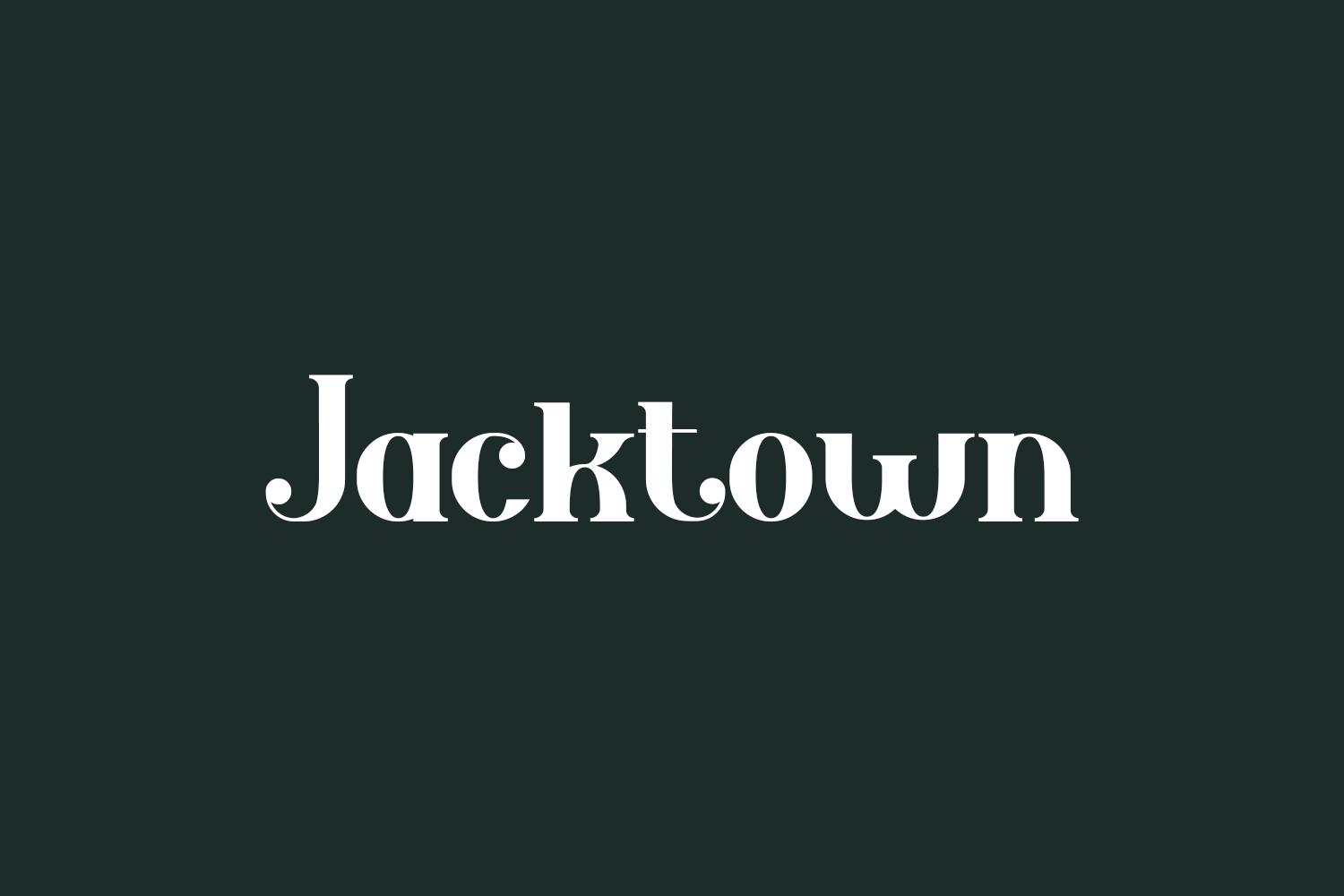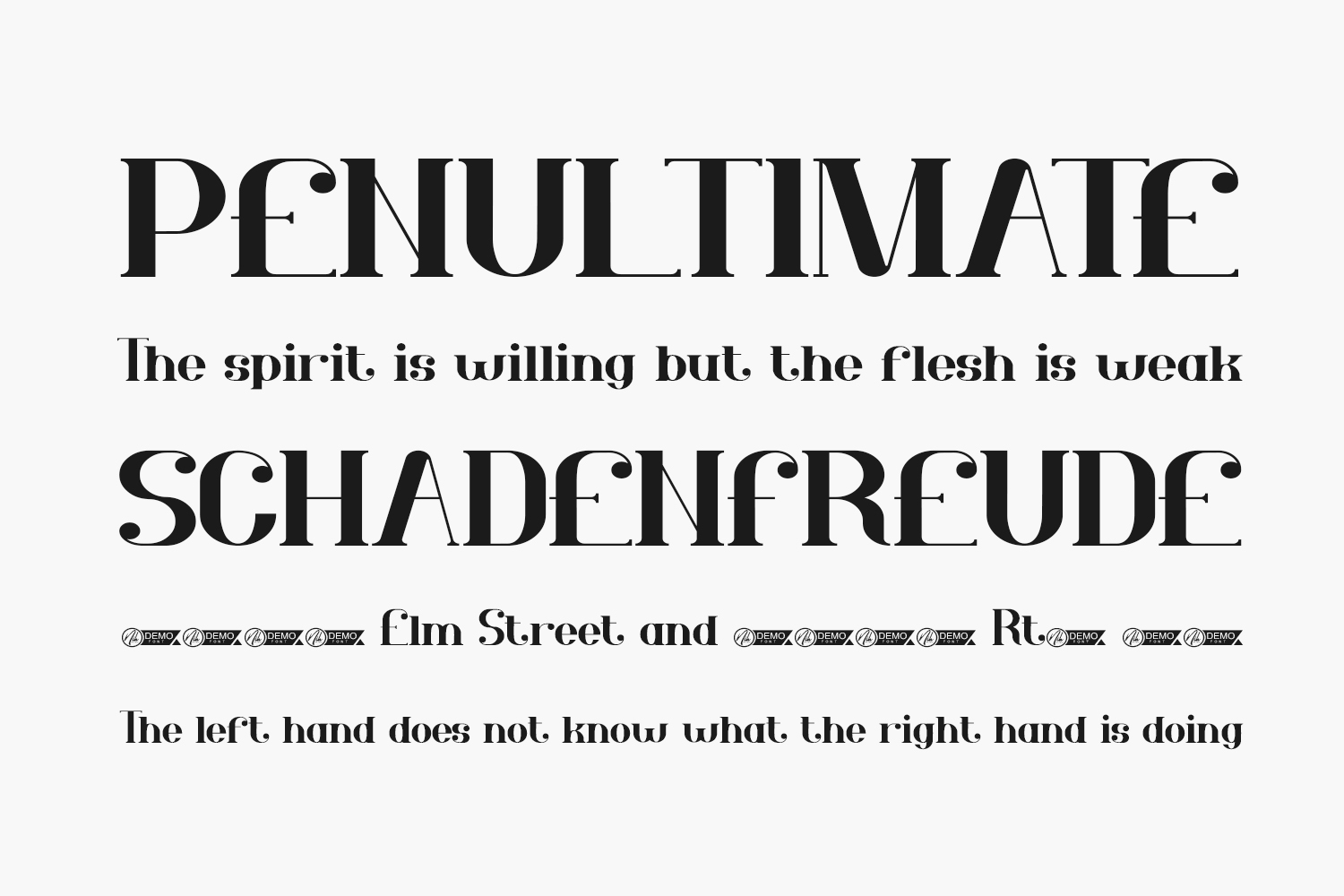
Introducing Jacktown Free Font Family, a unique and vintage display font that exudes distinct character. Ideal for a range of uses including product packaging, branding projects, magazine covers, social media posts, weddings, or simply adding expressive flair to text above any background. Download the font for free if you need it for personal use or purchase the full version for commercial use.
Designed by NihStudio